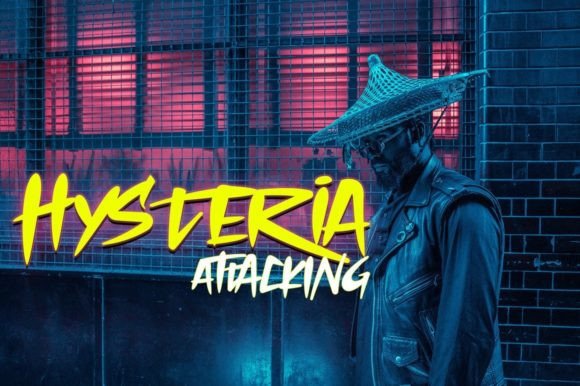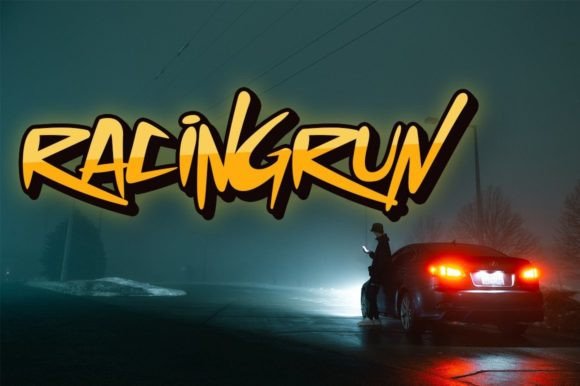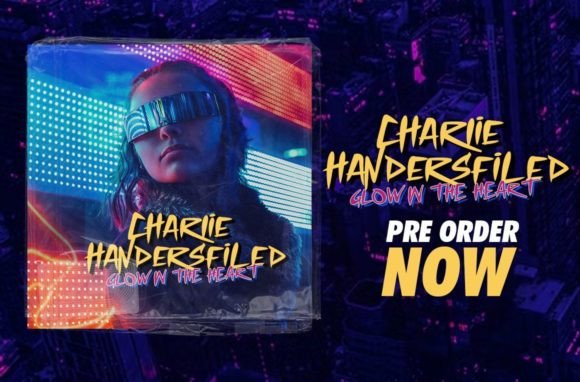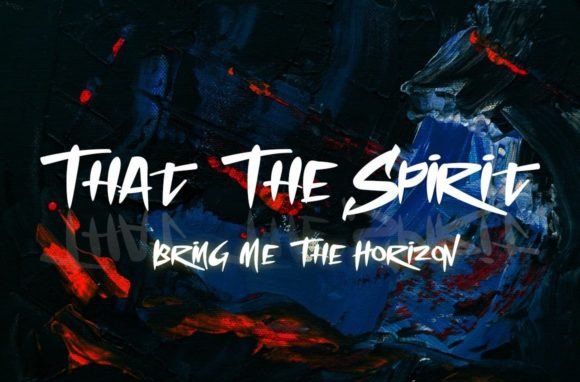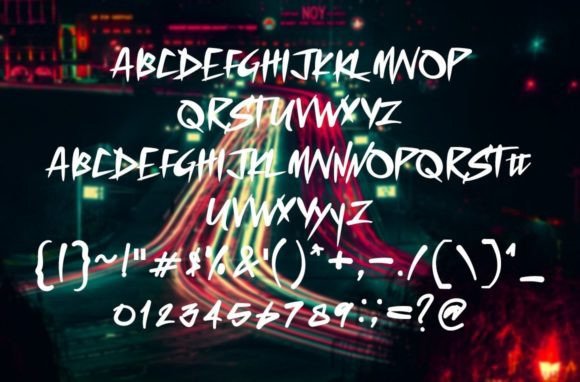
Introduction to Cyberian Font
Cyberian is a wild, bold, fast, rebellious, font with a futuristic touch to give a 100 years boost to your design right away.
Perfectly fit for esports logo, apps, UI, UX, game design, digital music branding, poster, live streaming design, anytime you need a futuristic touch, Cyberian will serve you right Take this font to your weaponโs arsenal to join the era of futurism.